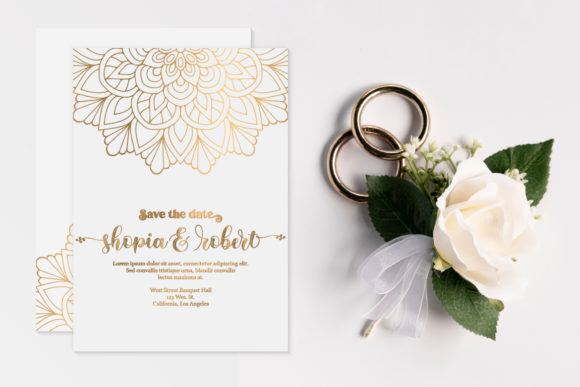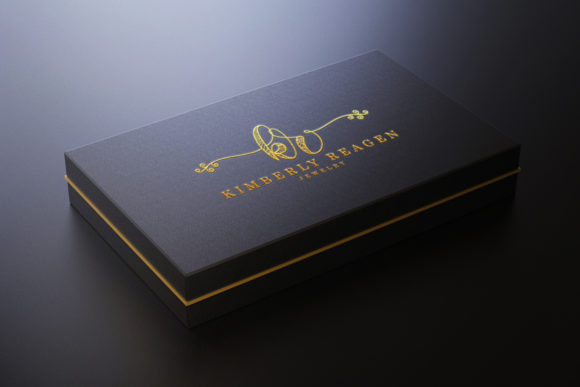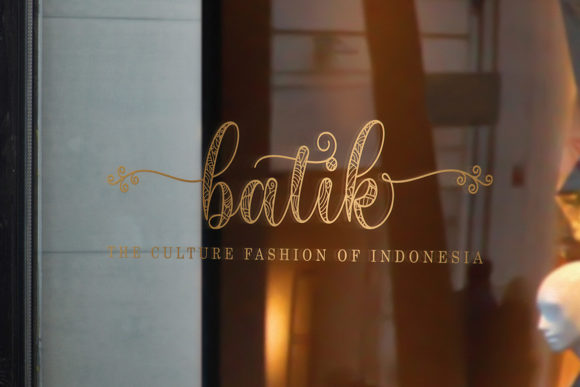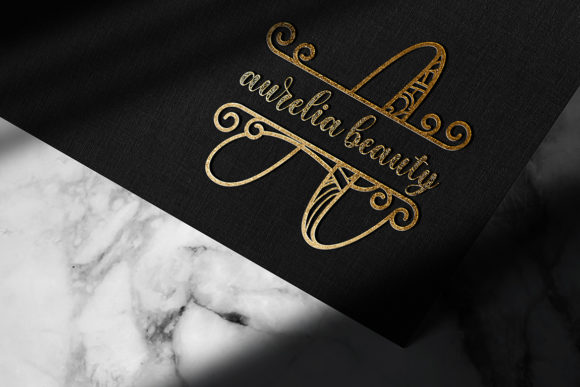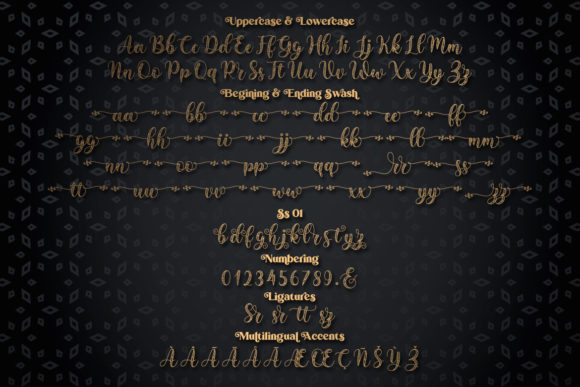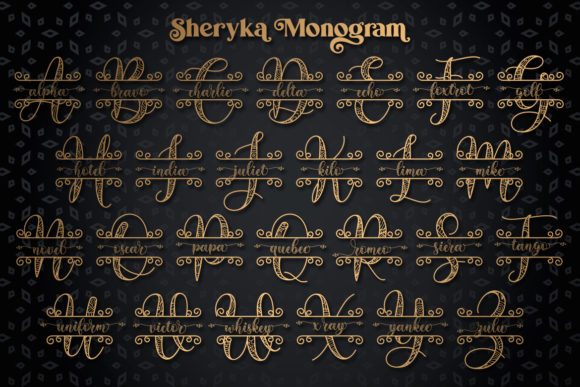
Introduction to Sheryka Font
As designers, we’ve all been there – staring at a blank canvas, trying to convey the perfect message through typography. The right font can elevate a design from bland to grand, and that’s exactly what the Sheryka Font does. This stunning script font adds a touch of elegance to any design project, making it perfect for wedding invitations, thank you cards, quotes, and more.
With its smooth lines, gorgeous glyphs, and stunning alternates, the Sheryka Font is a game-changer for designers. Whether you’re working on a high-quality design project or a simple greeting card, this font is sure to impress. And the best part? It’s free to download, making it an invaluable resource for designers of all levels.
So, what makes the Sheryka Font so special? Let’s take a closer look at this beautiful font and discover why it’s a must-have for any design project.
Key Features of Sheryka Font
- Unique, elegant design that adds a touch of sophistication to any design project
- Perfect for use in logos, branding, and other visual identity materials
- Comes with a wide range of glyphs and characters for versatility and flexibility
Honest Review: Sheryka Font
I recently stumbled upon the Sheryka Font while searching for a design resource to elevate my latest creative project. As a designer, I’m always on the lookout for high-quality fonts that can add a unique touch to my work.
Here are the things that work well with the Sheryka Font: ✨
- Its sleek and modern design makes it perfect for a variety of creative projects, from branding to editorial content.
However, I do have a few minor complaints: ⚠️
- The font can be a bit difficult to read at small font sizes, so it’s best to use it for larger headings or titles.
- The font family is relatively small, with only a few weights and styles available.
Overall, I’m impressed with the Sheryka Font and would definitely recommend it to other designers looking for a high-quality, free font to add some visual interest to their creative projects.
Sheryka Font is perfect for creative projects such as graphic design, logo creation, and typography-based art. It’s also great for presentations, documents, and social media graphics.